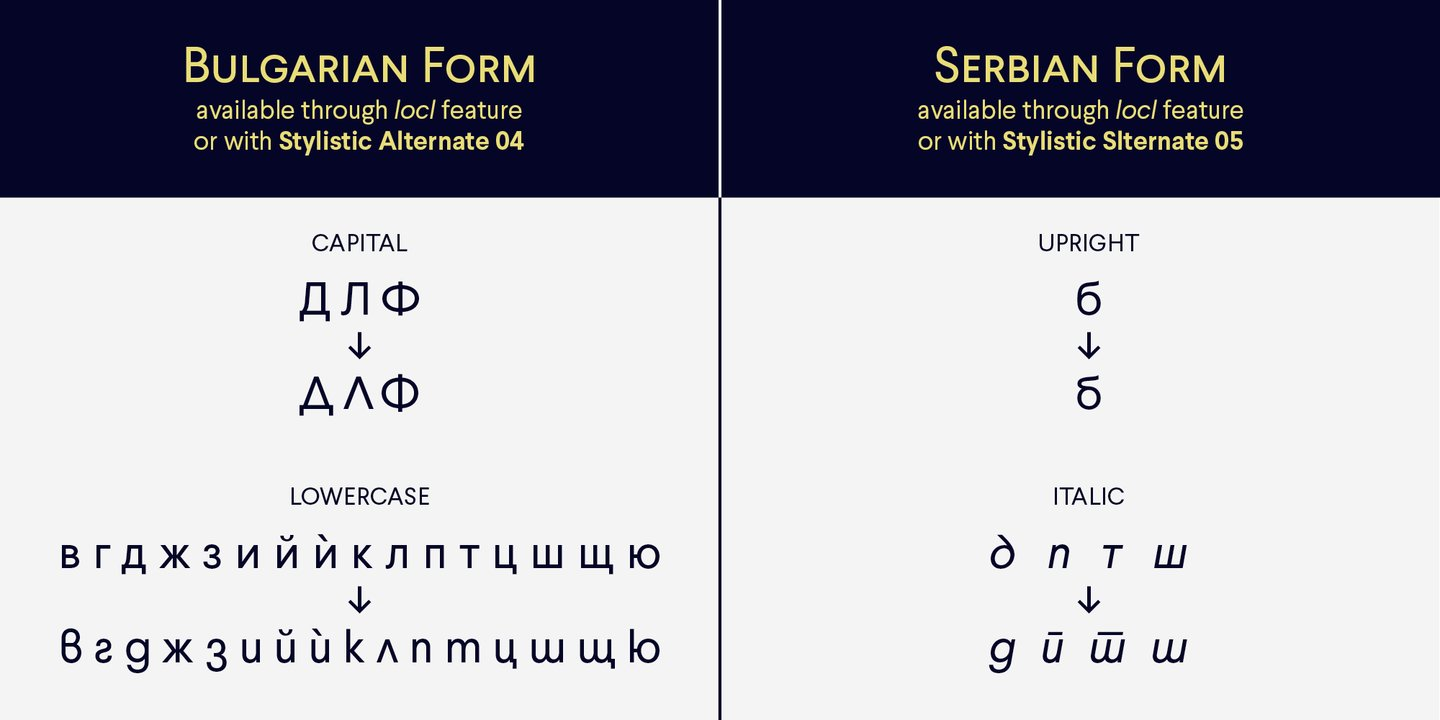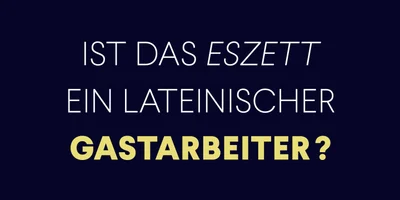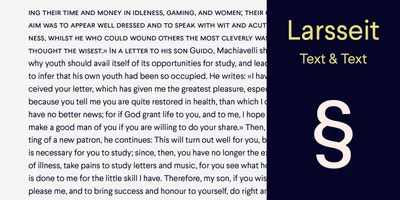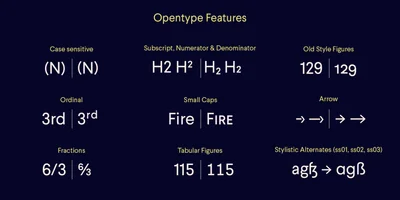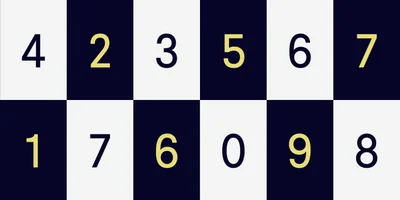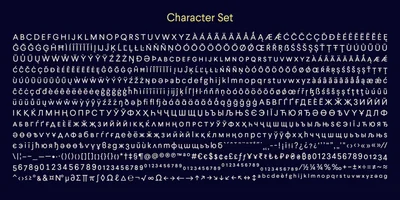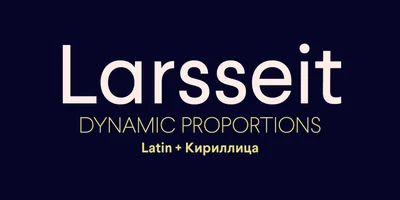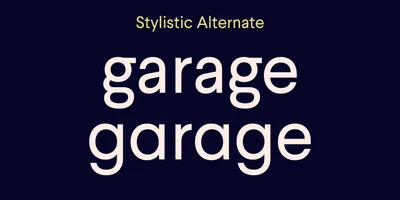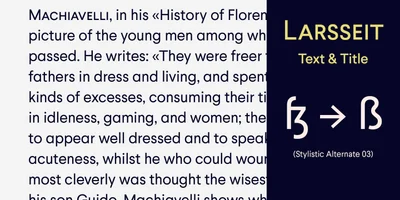
Larsseit vs Rational
Larsseit and Rational are both sans-serif typefaces sharing a geometric foundation. Where Larsseit leans editorial, Rational brings display. Compare which suits your Branding project.
Design overlap:60%
| Feature | Larsseit | Rational |
| Source | Type Dynamic | Rene Bieder |
Recommended: Larsseit
- editorial design character
- Suited for Ui and Apps
- From Type Dynamic
Consider: Rational
- display design character
- Suited for Display and Tech
- From Rene Bieder